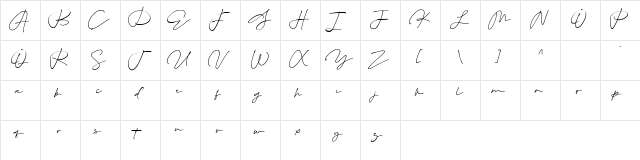
Billy Smith Regular
| Foundry | Megi Satyo Widodo |
| Designer | Megi Satyo Widodo |
Design Context for Billy Smith Typeface
Billy Smith is a composed and adaptable typeface that performs quietly and consistently across a wide range of design contexts.